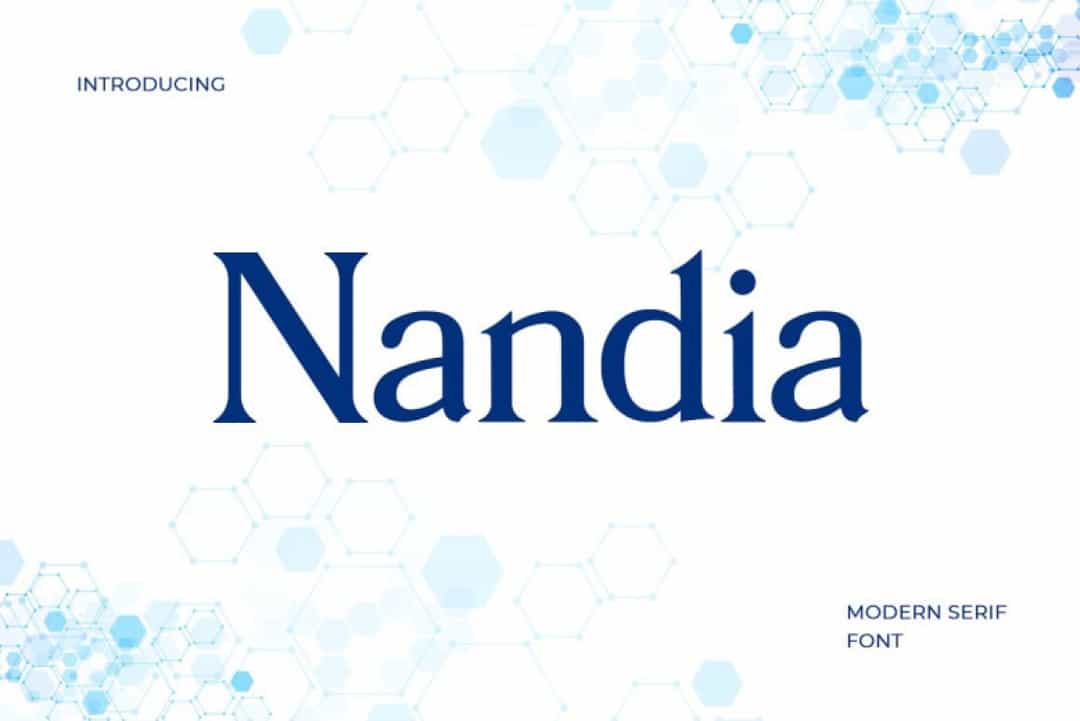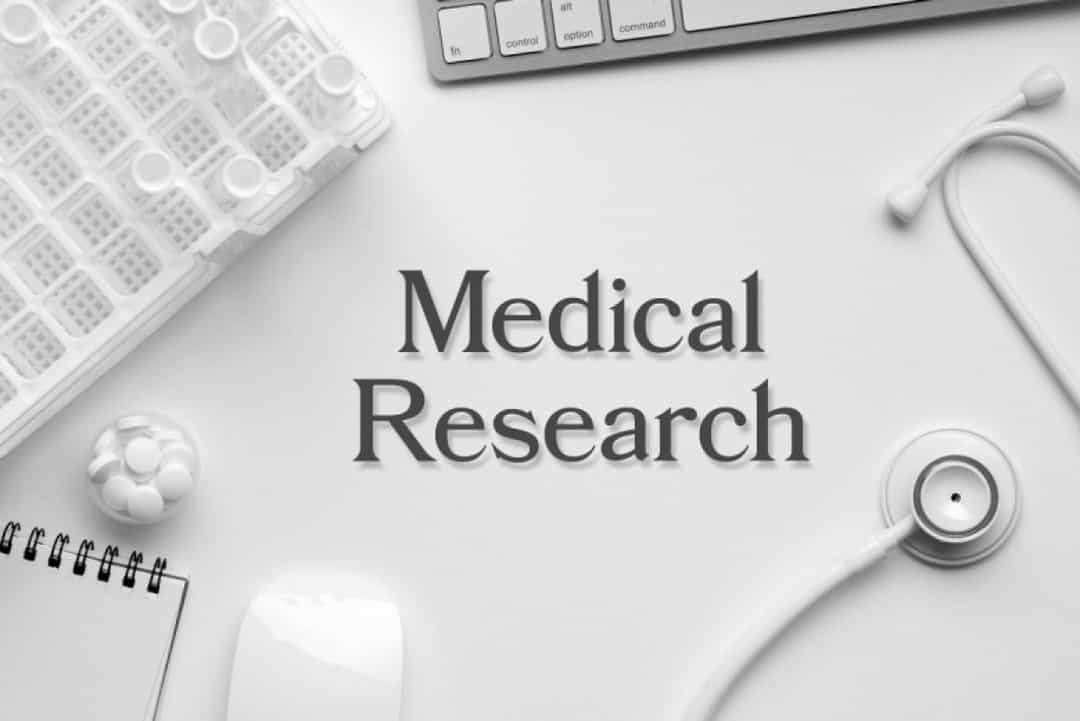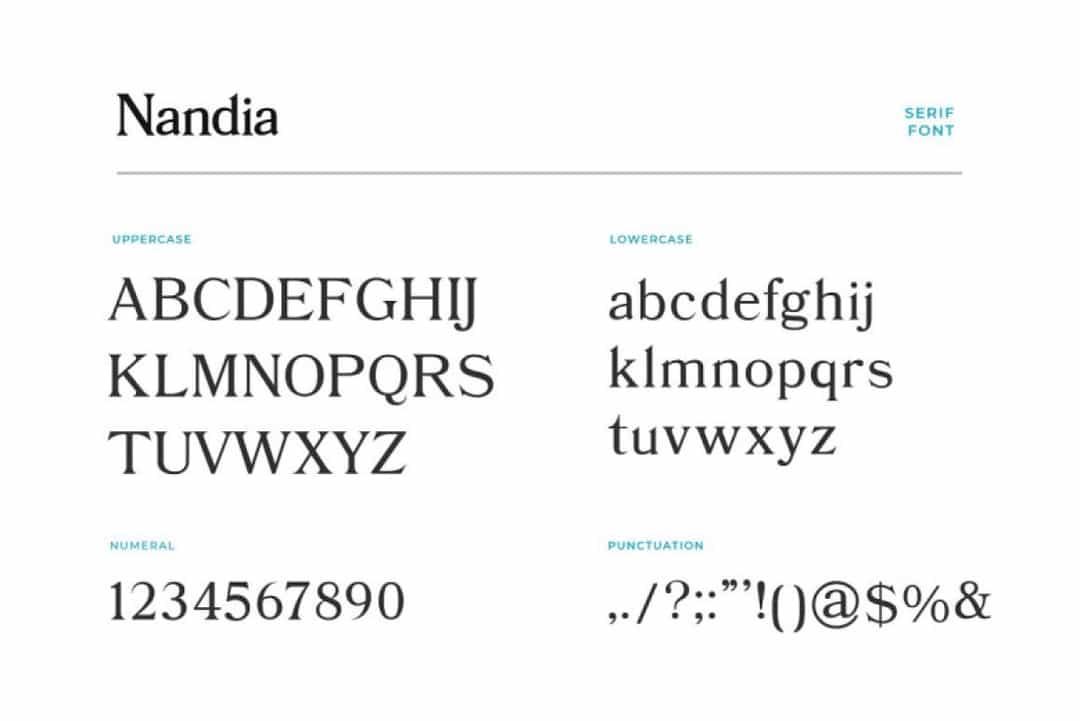
Nandia is a contemporary serif font inspired by both modern and transitional typefaces. Mondia features high contrast characters for an upscale appearance and boasts an increased x-height for easy reading of sentences.